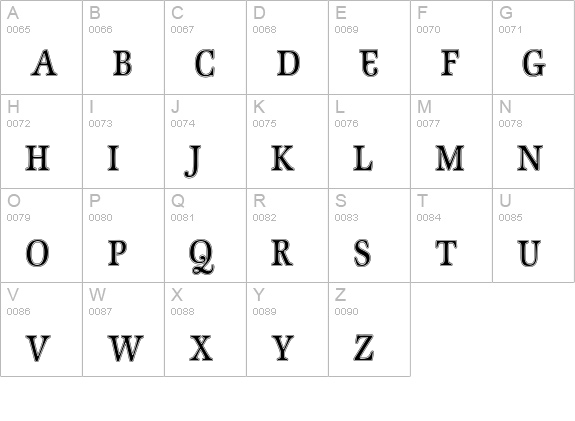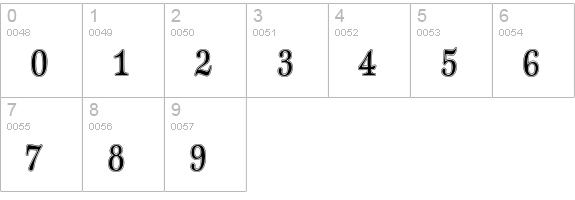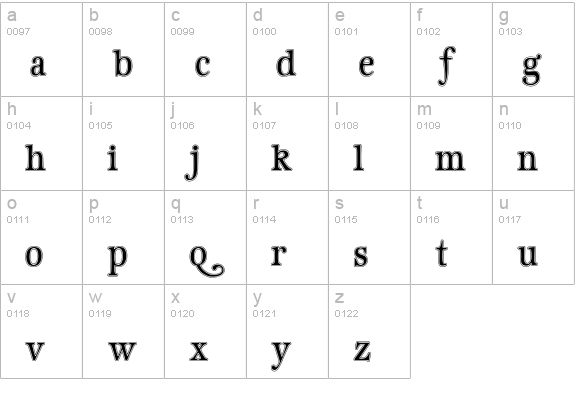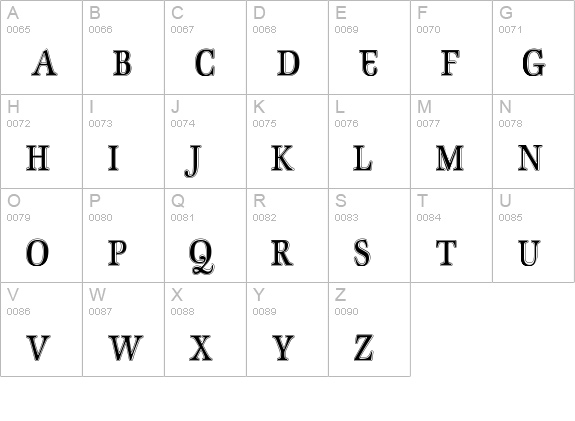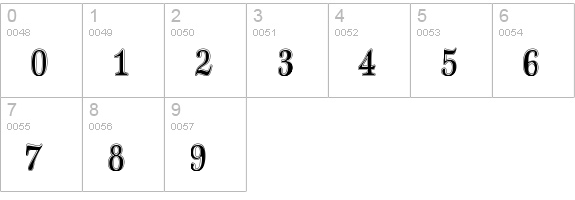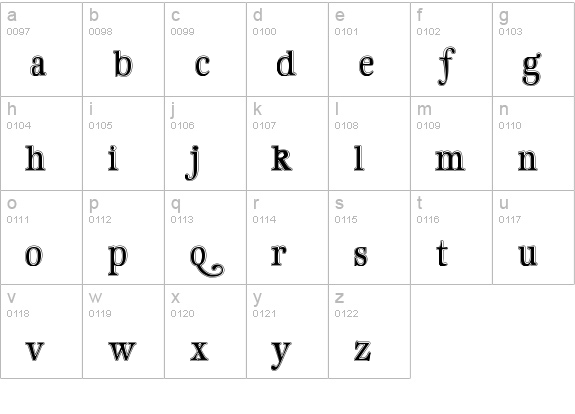
GeistInline Font Details
GeistInline font is a sleek and modern typeface that exudes sophistication and style. Its clean lines and elegant curves make it a perfect choice for adding a touch of refinement to any design project. The unique inline style creates a dynamic and eye-catching visual impact, making GeistInline font a versatile option for both headings and body text. And the best part? GeistInline font is completely free to download at FontsMarket.com. This means you can easily access this stunning font and use it in your projects without any cost. Don't miss out on the opportunity to elevate your designs with the timeless beauty of GeistInline font, available for free at FontsMarket.com.